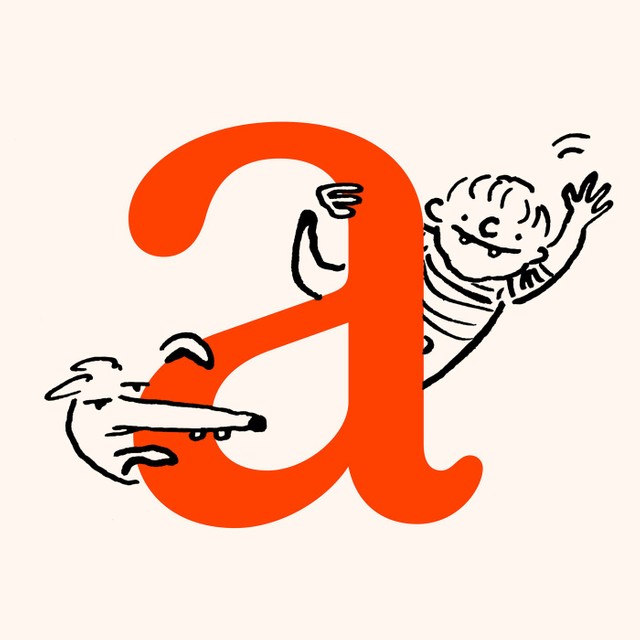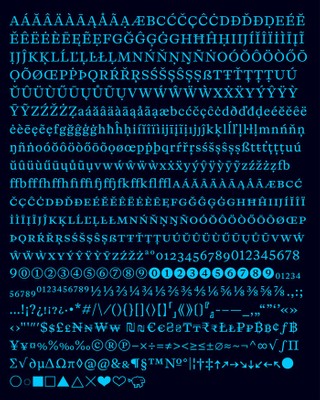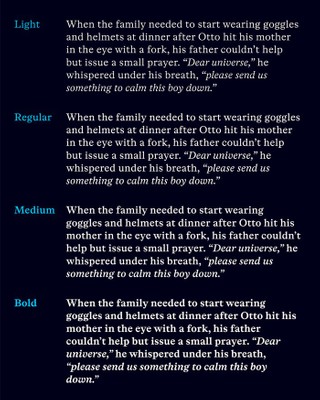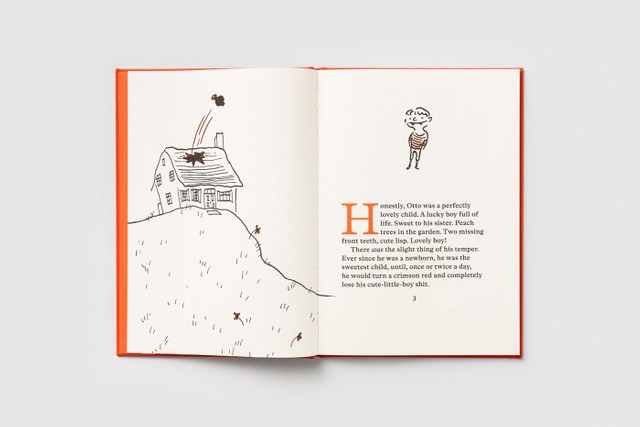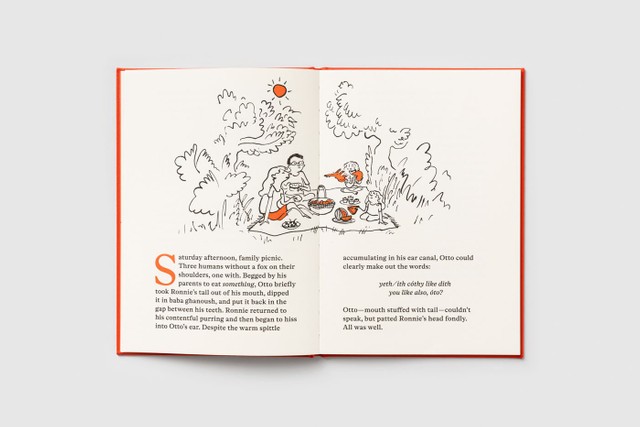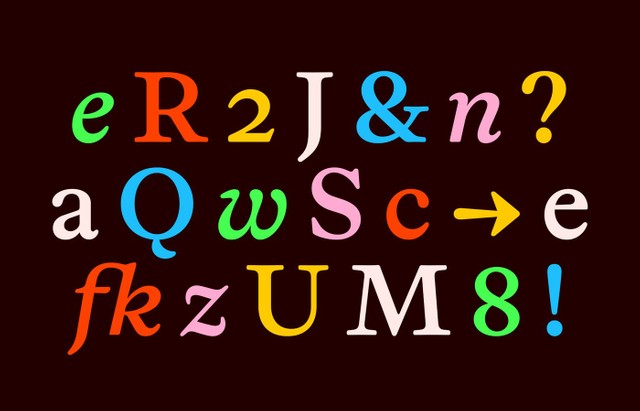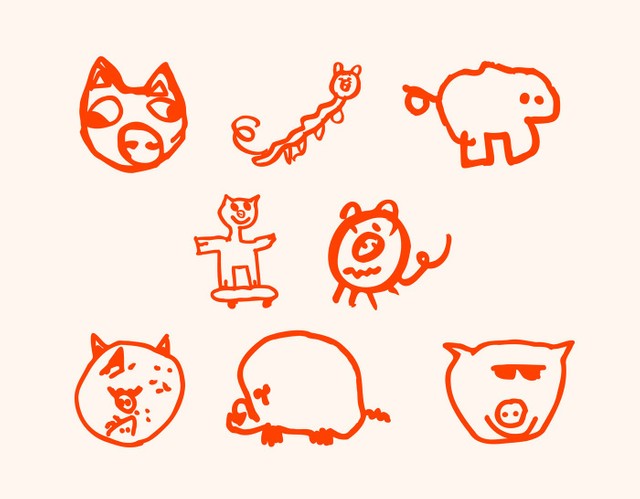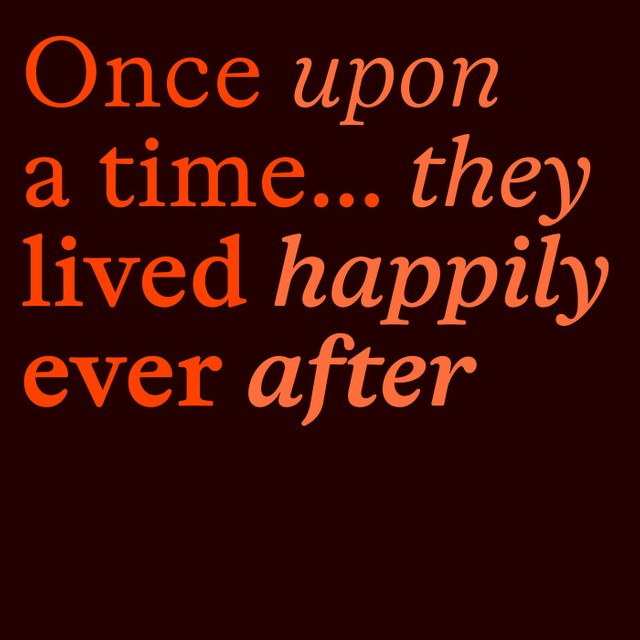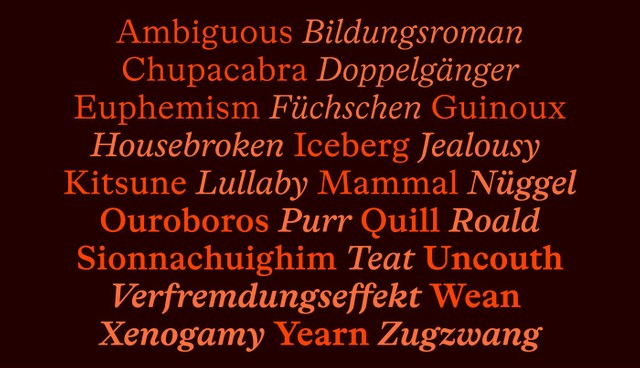
The books broke the suitcase —
We’re releasing ABC Otto today, a cheerful text typeface available in four considered weights. Otto has a sturdy, wide rhythm and beautifully lilting italics that will make your editor very happy.
Fittingly, we’re launching this font by publishing a book—also called Otto. It’s a real hardback with its own ISBN number and everything. The newest title from our emerging Dinamo Editions imprint, which officially launches today.
Otto the font can cosplay as a display face, with its subtly cartoonish presence and anthropomorphic shapes. It was developed and designed by Amsterdam-based graphic designer Sam de Groot and type-designer-meets-actor Laura Opsomer Mironov, and is a typeface for all things worth reading.
Otto the book was also designed and written by Sam with illustrations by Hannah Robinson. It’s a fable of modern parenting, a story about a perfectly lovely child with a bad temper and his somewhat, ehem, I guess it’s a pretty weird, maybe even toxic, relationship with a fox. This book might be one of the best things I’ve ever worked on. I hope you love it too.
Vibe
ABC Otto began its life as an irreverent remix of the 17th-century type of Miklós Kis, but over the years it gradually metamorphosized into something of its own. If you insist, it could still be seen as freewheeling fan fiction of the Baroque serif genre known as “le goût hollandois” (“the Dutch taste”), of which the Amsterdam-based Hungarian Kis was one of the leading figures. But with its much larger x-height, its round evenness rather than Kis’s stern jaggedness, and its occasionally top-heavy proportions, Otto is a proudly ahistorical design.
Styles and Family
Otto is available in only four weights, spanning Light to Bold plus italics. While Otto’s upright styles still bear a relation to the work of Miklós Kis (even if 3 x removed), the italics are an entirely new design by Laura and Sam.
The usual flowery tropes of Baroque italics are abandoned in favor of a bubbly simplicity. Even though the italics have a dynamic rhythm with a strongly varying slope, I see their vibe as open-faced and understated, bashful and coy.
Otto also has eight Dinamo pigs smuggled into its glyph set, three of which were drawn by Sam’s son and font namesake Otto, with three more drawn by Otto’s twin sister Pia. Dinamo co-founder Fabian’s son, also called Otto (we love a palindrome), drew two additional pigs.
Key Characters
While characters like R, S and & steal the show with their lopsidedness, J and Q are understated and (dare I say) demure. Smoothly viscous terminals reappear in a, c, and the italic w, among others. My favorite punctuation mark has got to be the ?—a little ode to curiosity itself?
Features
Celebrating the traditions of book typography, Otto’s default figure style is oldstyle (don’t worry: for all your annual reports and phone-book redesigns, tabular and lining figures are included as well). Unusual for Dinamo and in a small gesture of defiance of the limitless possibilities of digital fonts, Sam and Laura only included one alternate: you have the choice between a roman and a cursive @.
In addition to the usual ligatures, Otto also features pairs like fb, fh, fj, and fk—scarce in English, but common in Dutch and some other languages.
THE BOOK
In homage to the boy that inspired the font, Otto is a children’s book for adults, complete with illustrations by Hannah Robinson, whose charming and joyful cartoon dogs for The New Yorker initially caught my eye. Otto the book is hardback, bound with orange-red library linen, and printed by Grammlich in Baden-Württemberg (a stone’s throw from the Black Forest that inspired the Grimm tales). Otto is an Aesopian Bildungsroman about a boy and his, um, as I mentioned before, it’s a complicated relationship with a fox, designed and written by Sam.
Here’s the movie trailer voice-over:
Otto was a perfectly lovely child… although there was the slight thing of his temper. After Otto hit his mother in the eye with a fork, his family had to start wearing helmets at the dinner table, and his father couldn’t help but issue a small prayer. “Dear universe,” he whispered, “please send us something to calm this boy down.”
Enter Ronnie.
The End